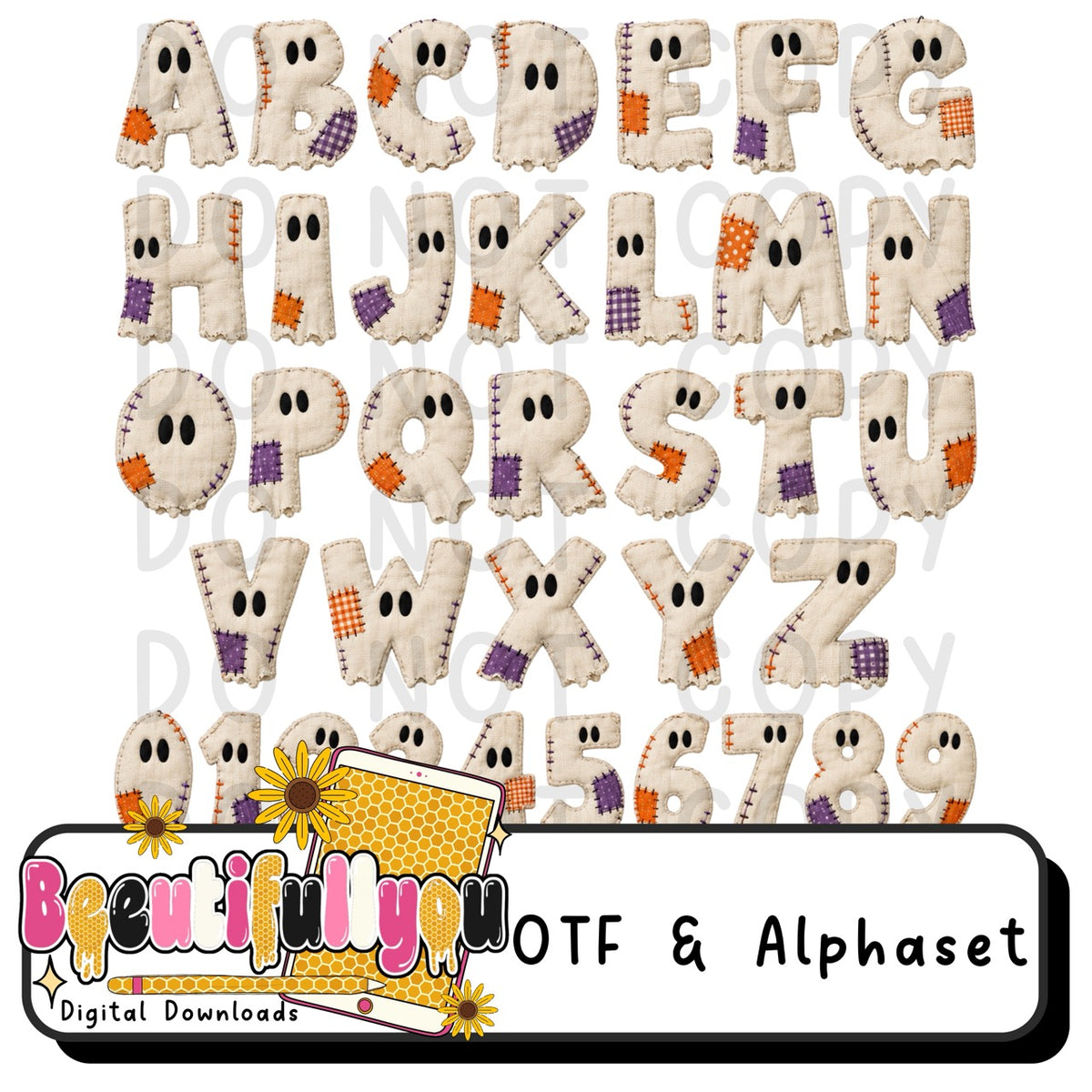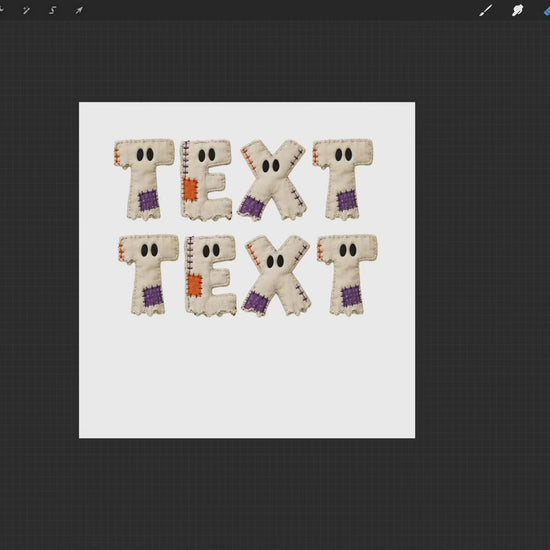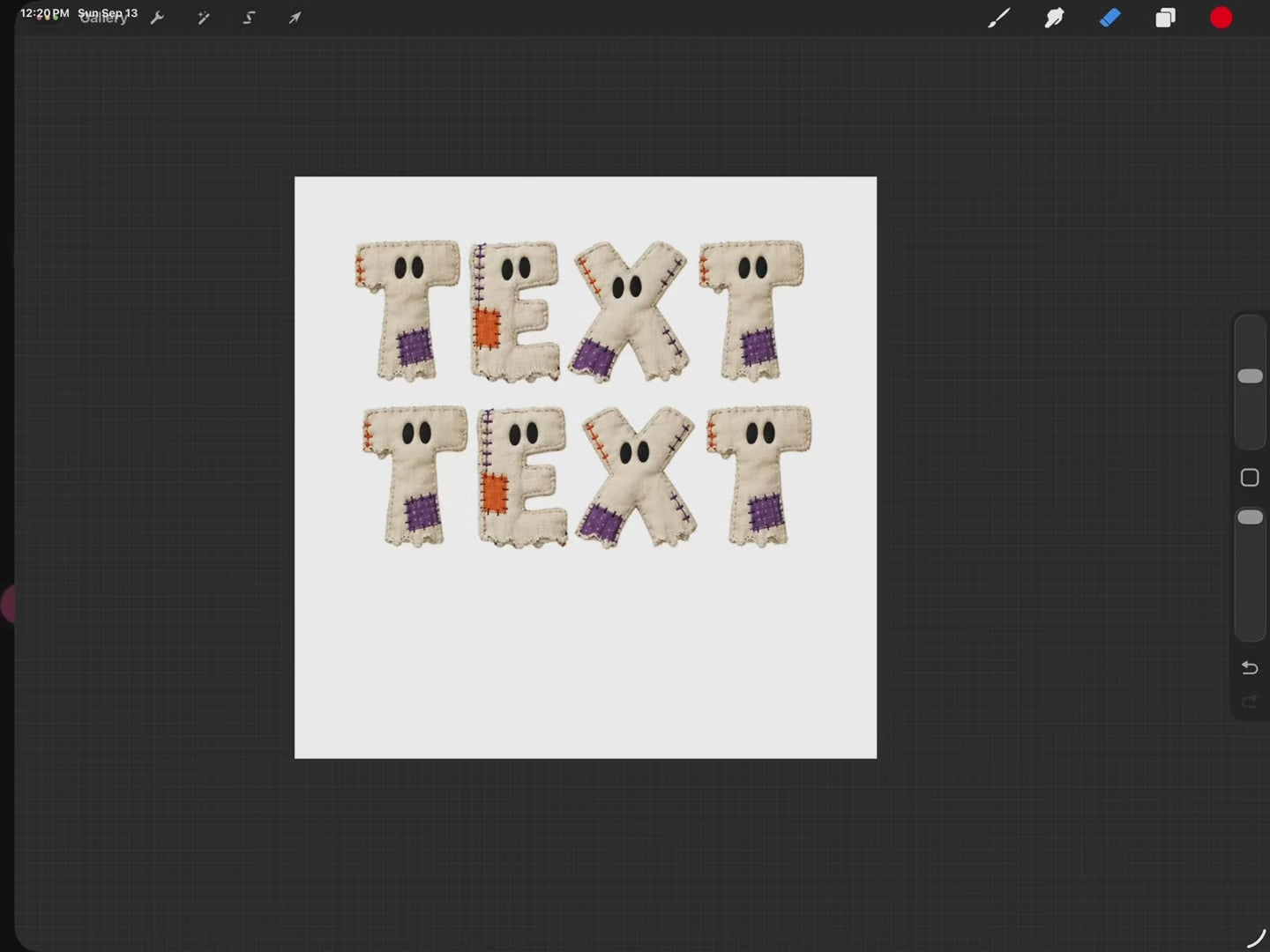
Ghost Sheet Patchwork OTF Font + Alpha Set
Meet Ghost Sheet Patchwork, a spooky little Halloween font with a handmade, stitched-together personality. π»
Each character is designed to look like a tiny ghost made from worn cream fabric, complete with uneven hems, black ghost eyes, visible stitching, and mismatched orange and purple fabric patches. The imperfect textile look gives the alphabet a cozy handmade Halloween feel without being overly scary.
The character set shown includes AβZ and numbers 0β9.